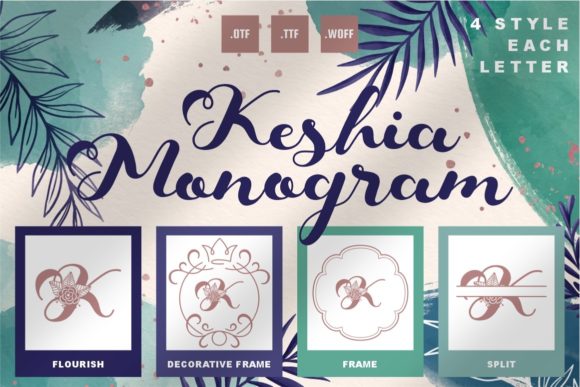
Introducing Keshia Monogram, the captivating decorative font that transforms your designs into breathtaking masterpieces. With its intricate detailing and precise craftsmanship, this font empowers you to express your unique style with elegance and flair.
Keshia Monogram is a visual feast for the eyes, meticulously designed to elevate your designs to new heights. Its flowing curves and delicate flourishes evoke a sense of timeless beauty, perfect for adding a touch of sophistication to any project. From elegant invitations and stunning logos to eye-catching social media posts, Keshia Monogram is the ultimate font for creating designs that leave a lasting impression.
But it's not just about aesthetics. Keshia Monogram is also incredibly versatile, lending itself effortlessly to a wide range of creative endeavors. Whether you're a seasoned designer or just starting your artistic journey, this font is your perfect companion. Let your imagination soar and explore the endless possibilities that await with Keshia Monogram.
It's not just a font; it's an inspiration. Keshia Monogram will ignite your creativity and unleash your inner artist. Its alluring charm will captivate your audience, leaving them mesmerized by the beauty of your creations.